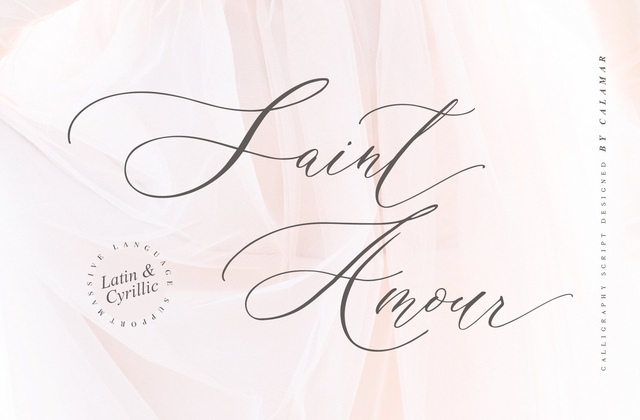
Saint Amour Script Font
Saint Amour Script Font is perfect for various design applications including romantic wedding invitations, luxury perfume packaging, high-end jewelry branding, elegant restaurant menus, boutique hotel signage, valentine's day promotions, anniversary celebrations, intimate spa branding, fine wine labels, and sophisticated fashion house identities. This romantic typeface excels in projects requiring passionate elegance and French-inspired sophistication that captures the essence of eternal love and refined luxury.
What makes Saint Amour Script Font so exciting is its exquisite embodiment of Parisian romance and sophisticated passion through flowing calligraphic letterforms that dance with elegant grace. The font features sensuous curves reminiscent of handwritten love letters, delicate flourishes that suggest silk ribbons and rose petals, and romantic ligatures that create seamless connections between letters like intertwined lovers. Its distinctive amorous character and sophisticated charm make it perfect for luxury brands seeking to communicate intimacy, elegance, and the timeless allure of French romantic tradition.
The Saint Amour Script Font family includes regular and bold script weights, along with ornamental swashes and decorative elements that enhance its versatility for different romantic applications. Each style maintains the font's signature passionate character while providing options for various luxury design approaches. The family also features heart motifs, floral ornaments, and elegant borders that can be combined with the letterforms to create cohesive romantic design systems.
Whether you're creating luxury branding, romantic celebrations, or intimate communications, Saint Amour Script Font Free Download delivers sophisticated typography that speaks the universal language of love and elegance. This typeface transforms ordinary messages into passionate declarations that celebrate beauty, romance, and the art of sophisticated living. The font's luxurious appeal makes it particularly effective for premium brands, wedding planners, and businesses targeting audiences who appreciate French elegance and romantic sophistication.
Saint Amour Script Font stands out by delivering authentic romantic luxury that feels genuinely sophisticated rather than artificially ornate or overly decorative. Its carefully crafted calligraphic details and flowing proportions ensure that designs feel elegantly passionate while maintaining excellent readability for romantic messaging. From intimate wedding stationery to luxury brand communications, this font provides designers with tools to create communications that celebrate the art of love and transport audiences into worlds of sophisticated romance through elegant, French-inspired typography.